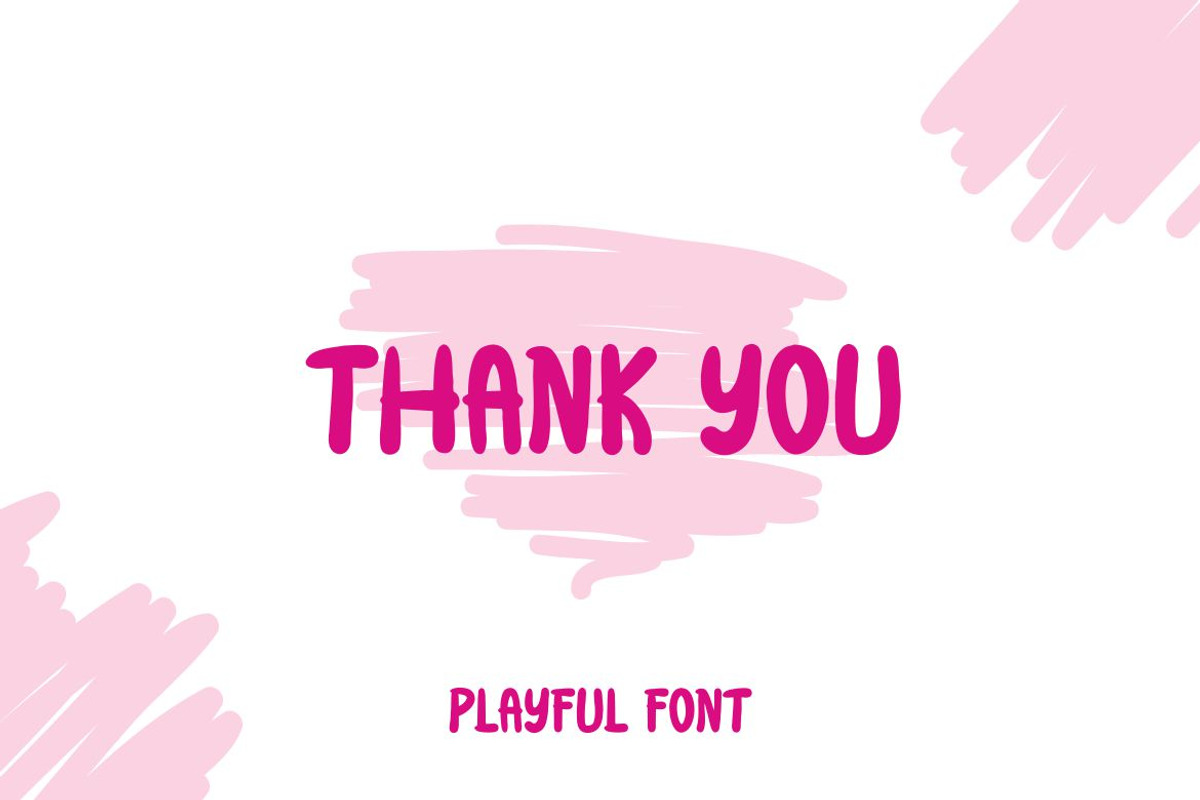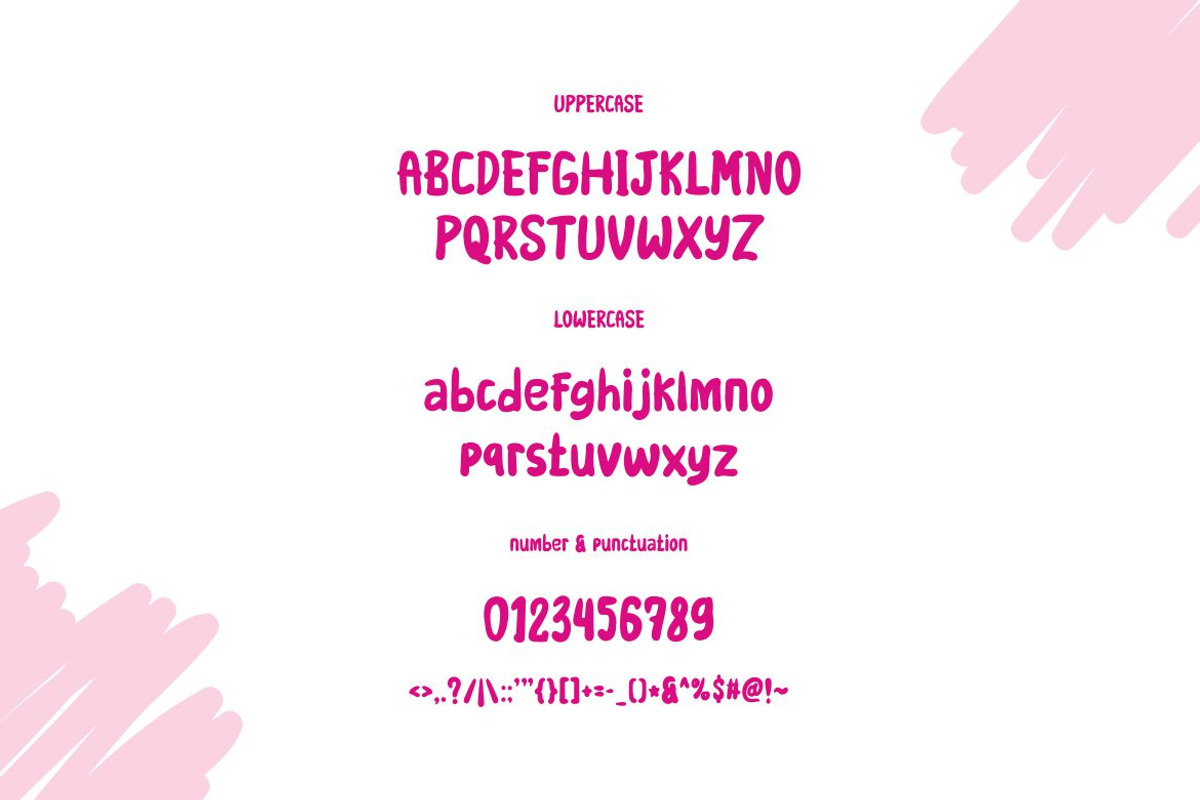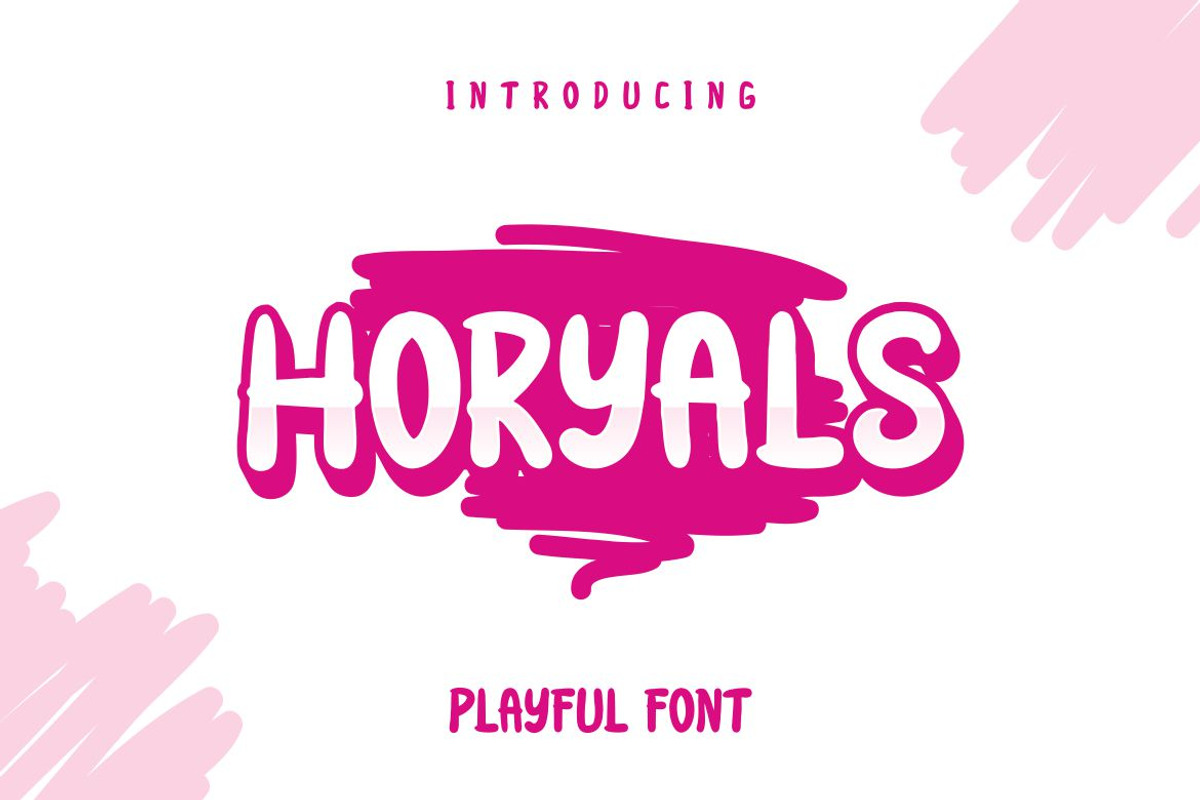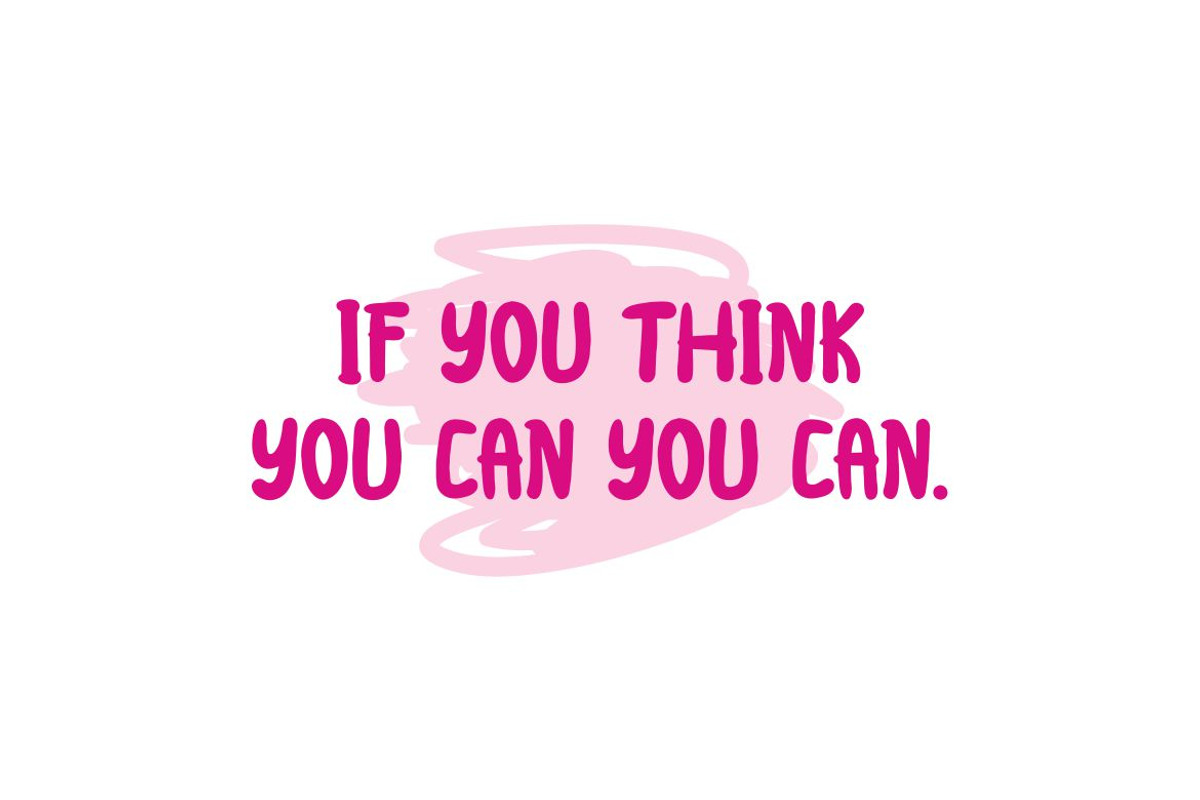
Horyals - Playful Font
Introducing Horyals , a cool and elegant Script and Handwritten font. Elegant font feel. This font gives you a beautiful and modern atmosphere. suitable for posters, book covers, cards, merchandise, etc.